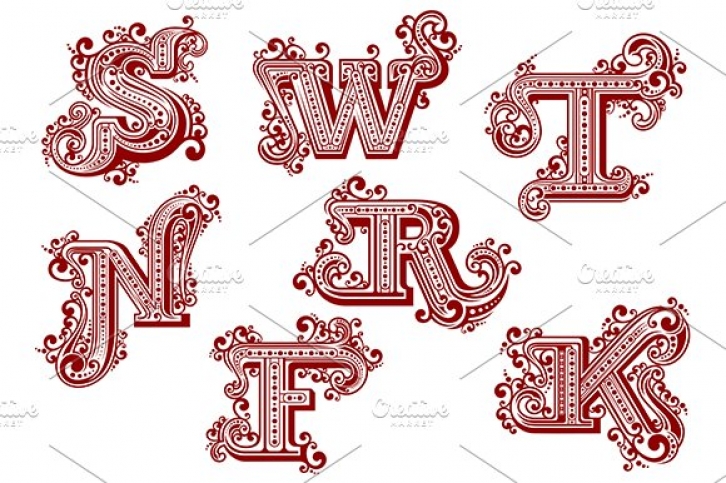
Elegant uppercase red letters in vintage swirly style ornated by twisted lines, curlicues and dots isolated on white background. Letters F, K, N, R, S, T, W. EPS and JPEG files are in archive